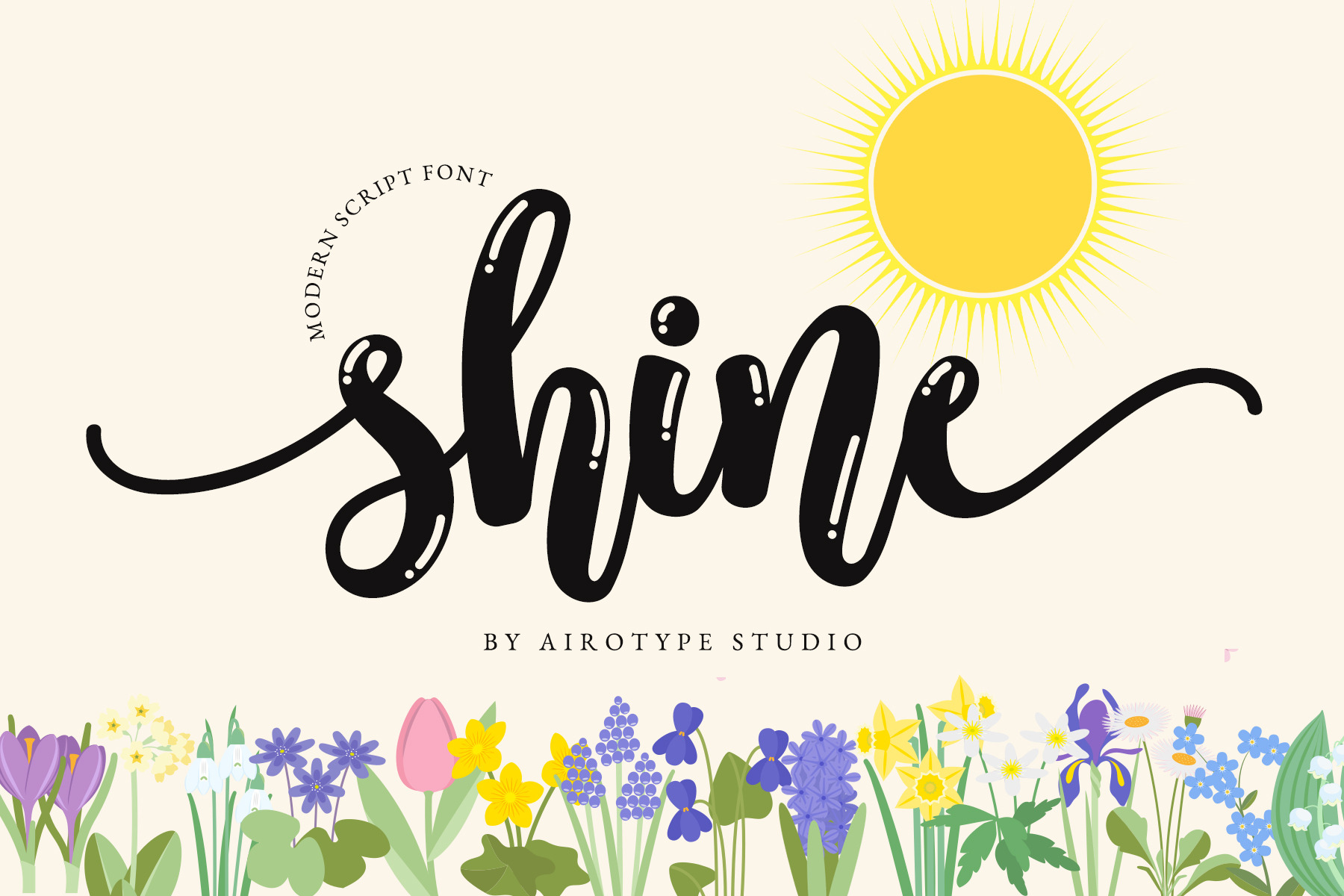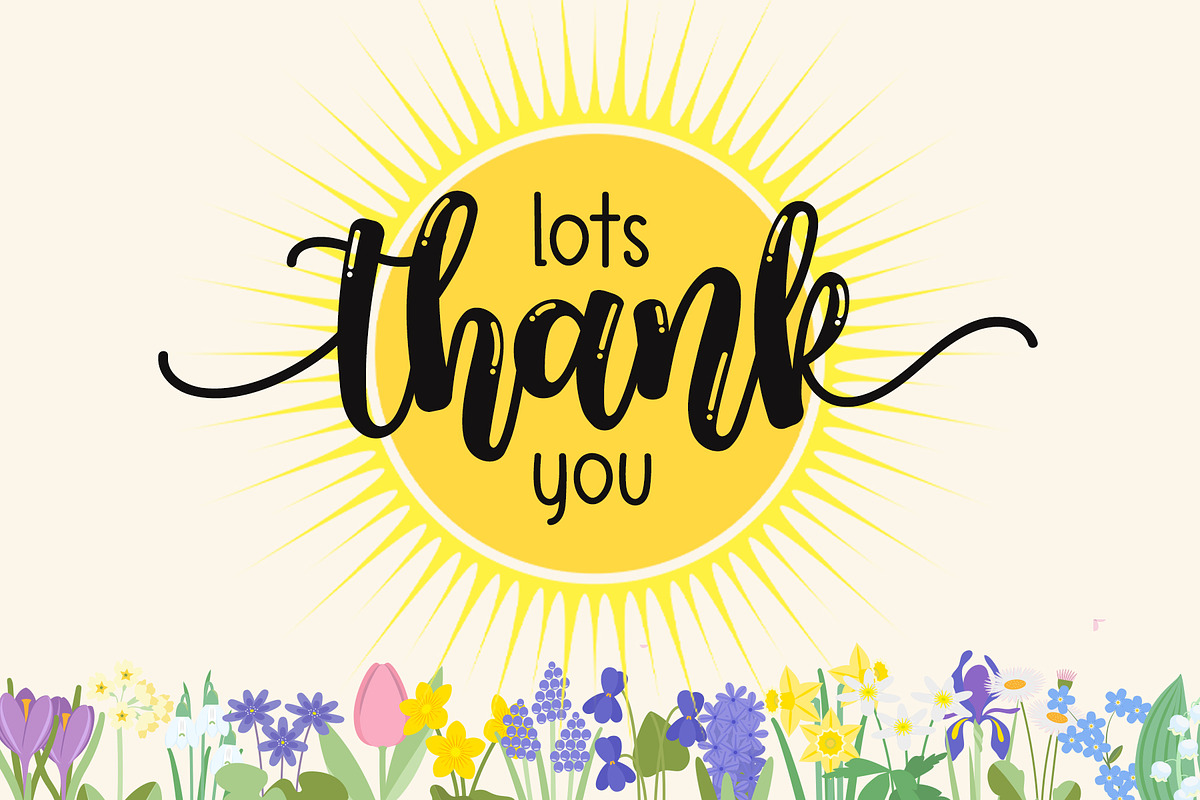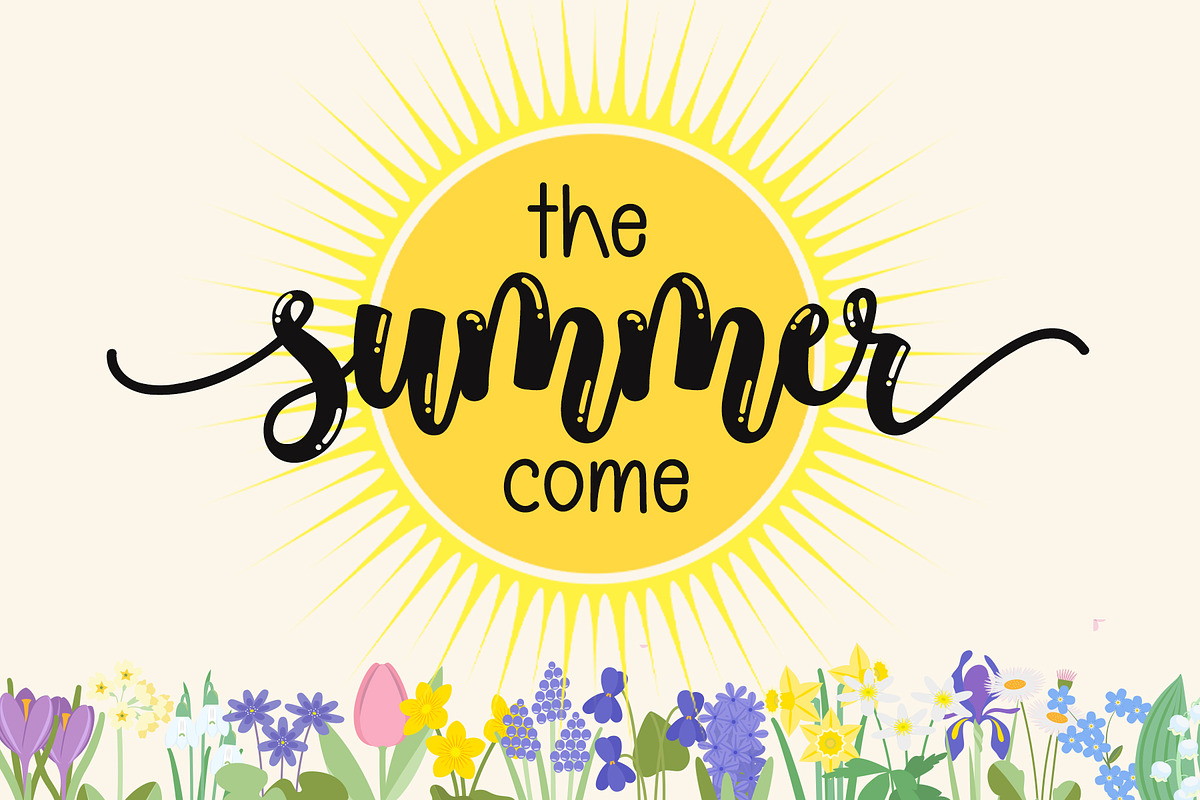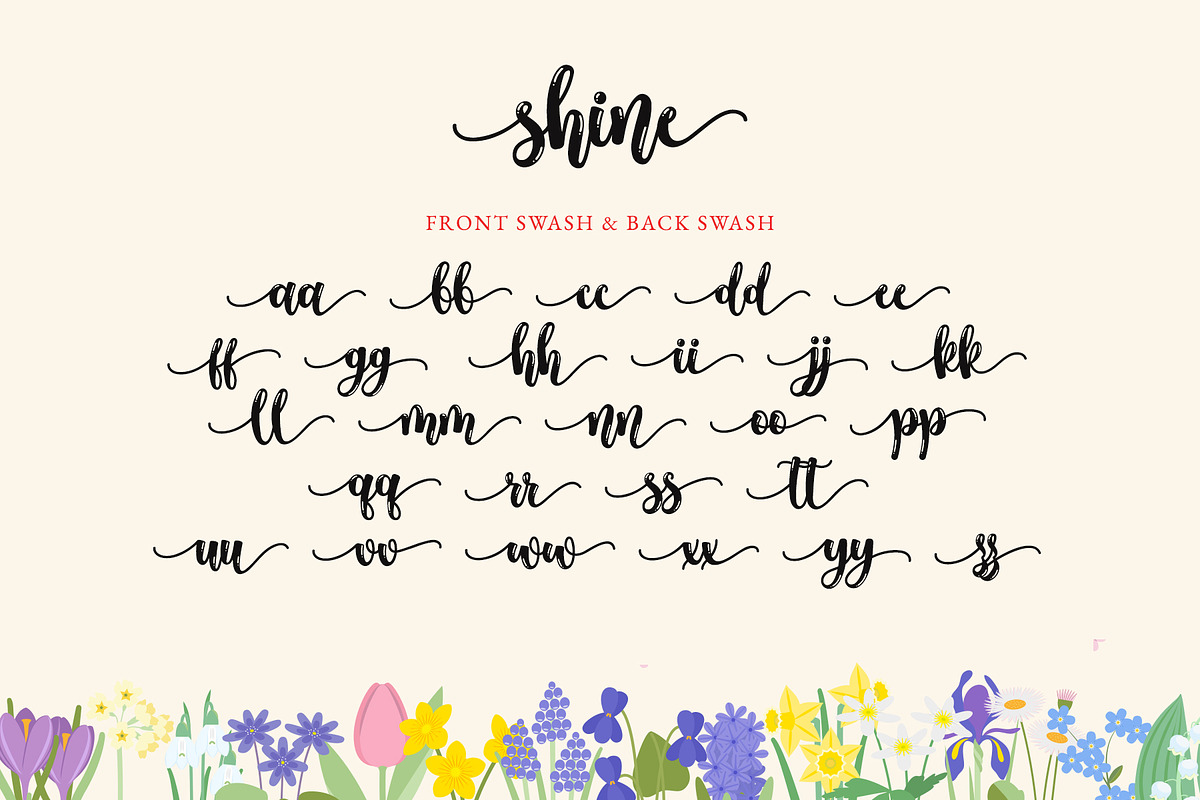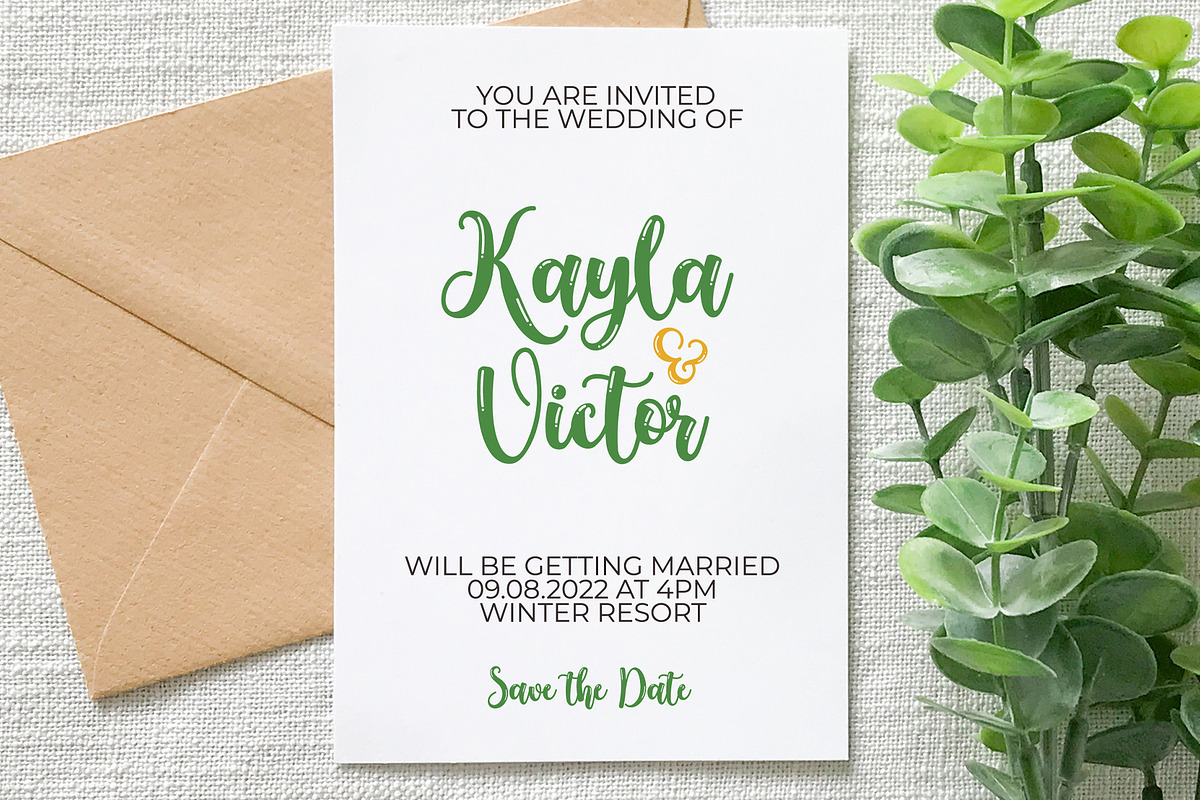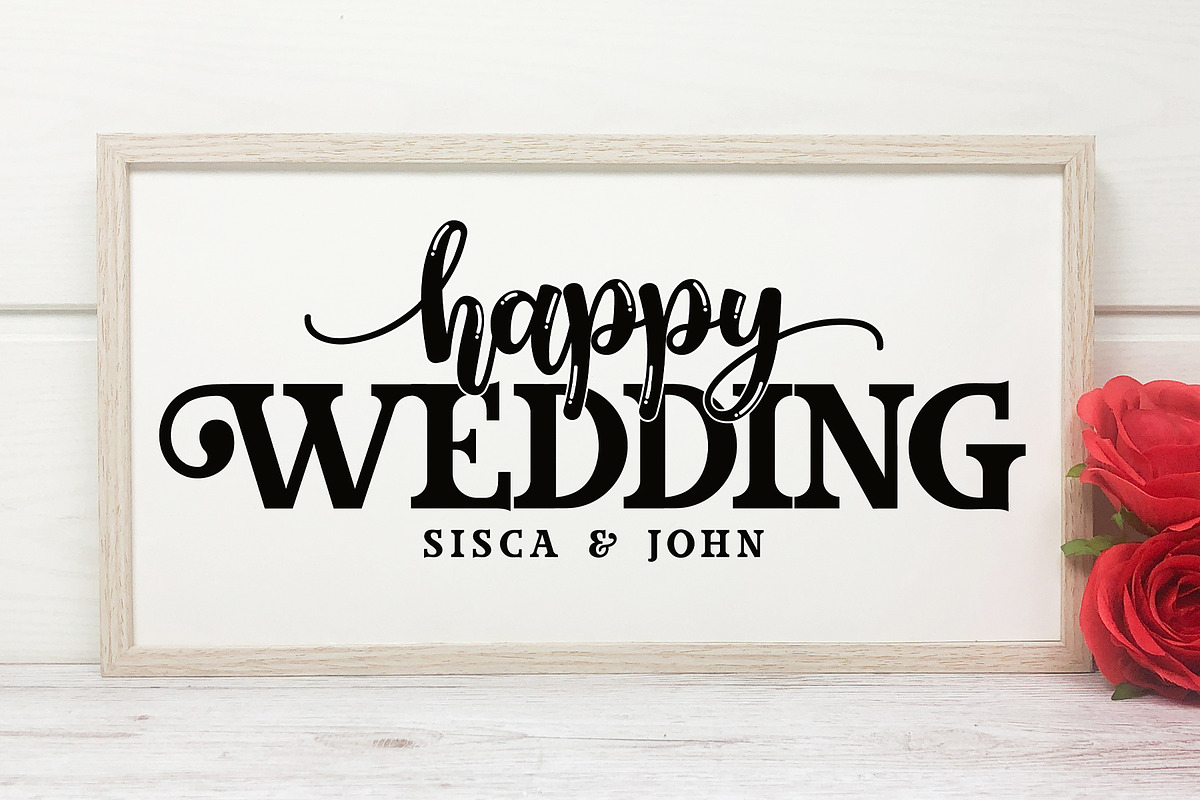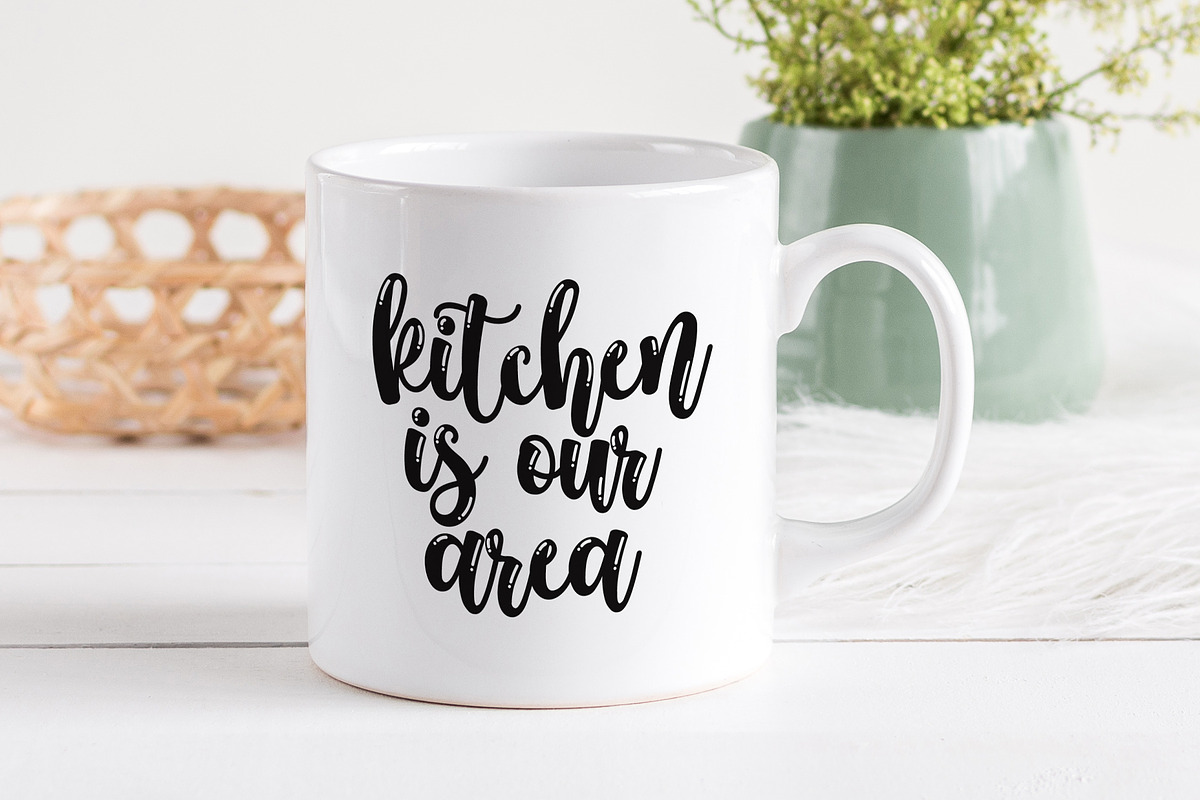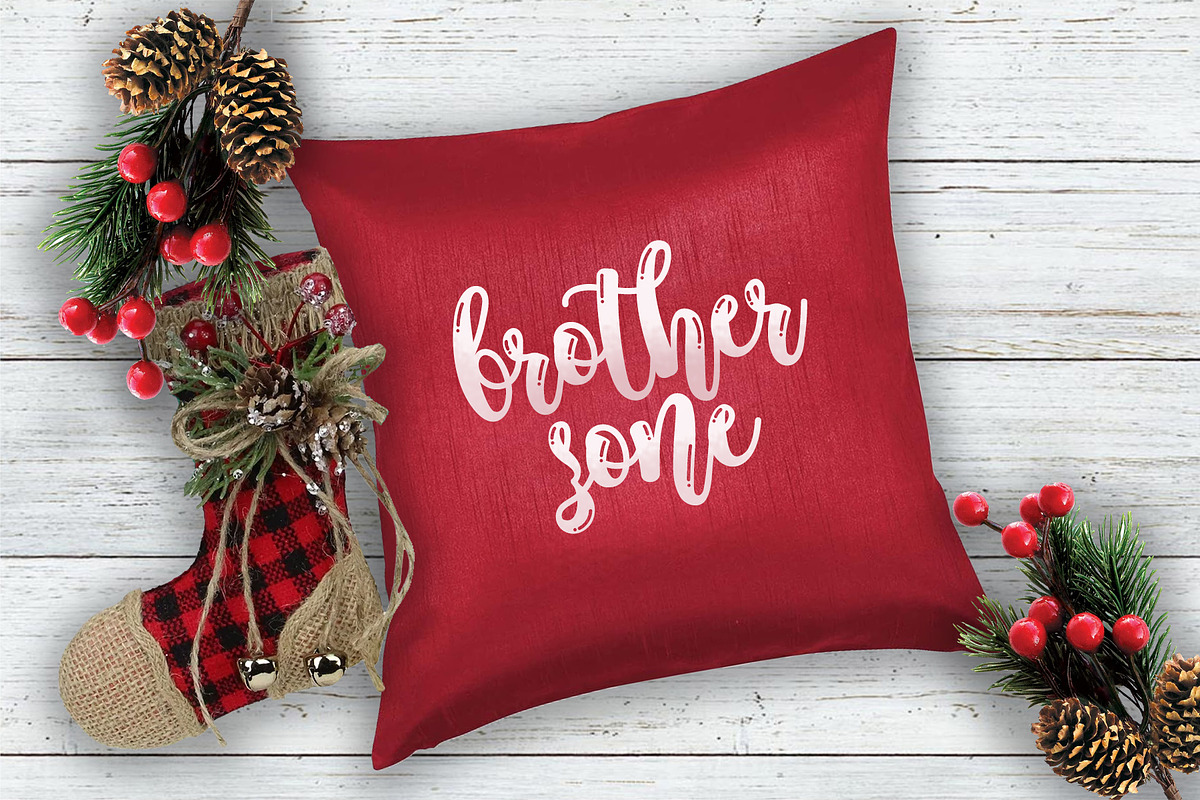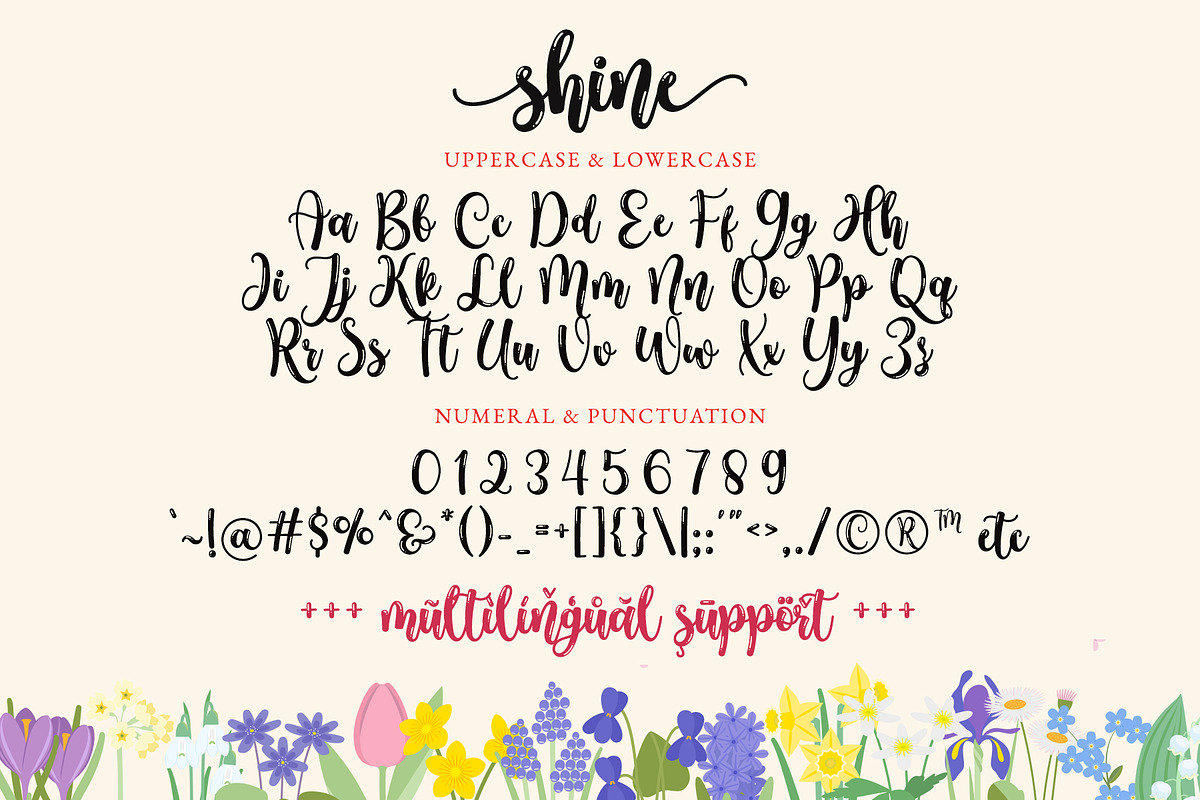
Shine - Bold Tail Swash Font
Shine is bouncy bold script calligraphy font with elegant and modern touch. It has tail swash for its front and back.
Shine is beautiful font for design with elegant and modern vibes, such as wedding, invitation, stickers, sublimation, cards, birthday, t-shirt design, farmhouse design, and others.
- Uppercase and Lowercase (includes swash)
- Most Multilingual Accent